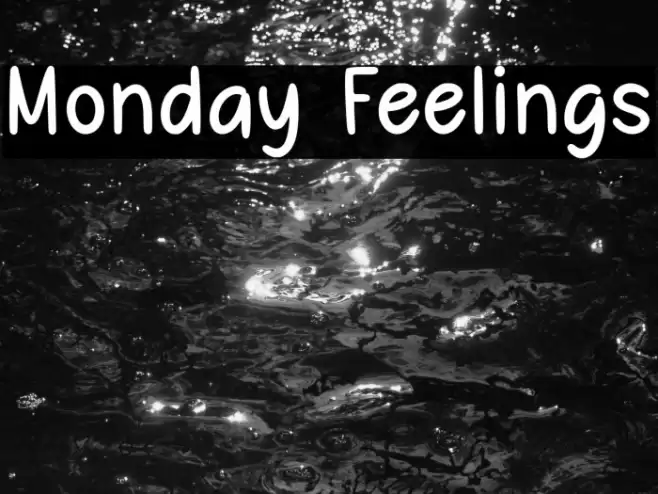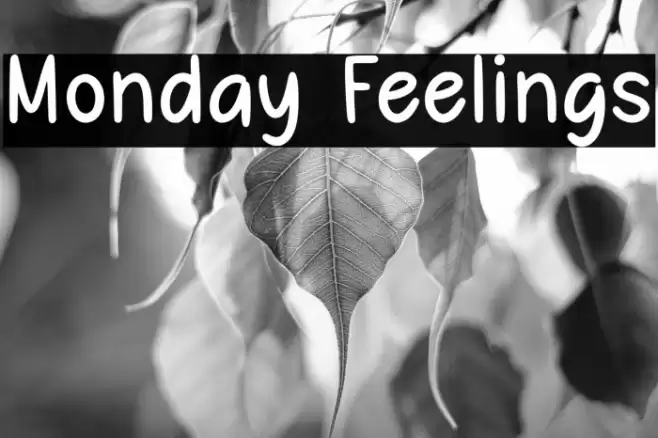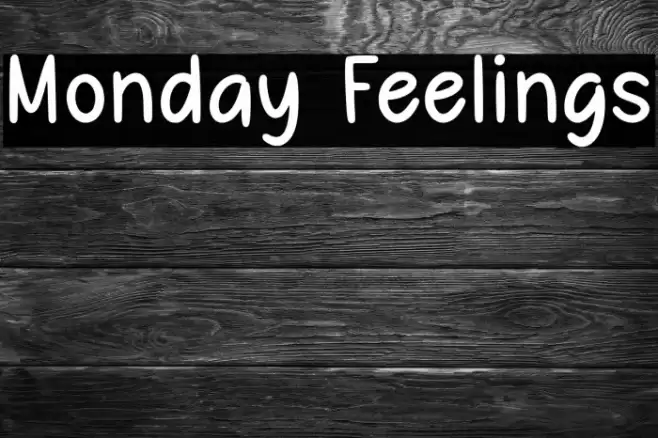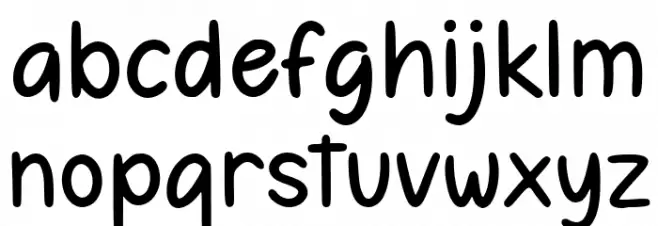
Monday Feelings Font
Monday Feelings Description
This playful and whimsical font features rounded, hand-drawn characters that exude a sense of fun and informality. The letters are slightly uneven, adding a charming, organic feel that makes it perfect for casual and creative projects. The uppercase and lowercase letters maintain a consistent style, with a friendly and approachable appearance. The font's simplicity and clarity ensure readability while still providing a unique, artistic flair. Its versatility makes it suitable for a variety of uses, from children's books to greeting cards and informal branding.
A playful, hand-drawn font with rounded, whimsical characters from Regular fonts.
- Proposed Projects: Ideal for children's books, greeting cards, informal branding, and creative projects.
- Overall Style: Casual
- Use Case: Headlines, Informal text, Creative projects